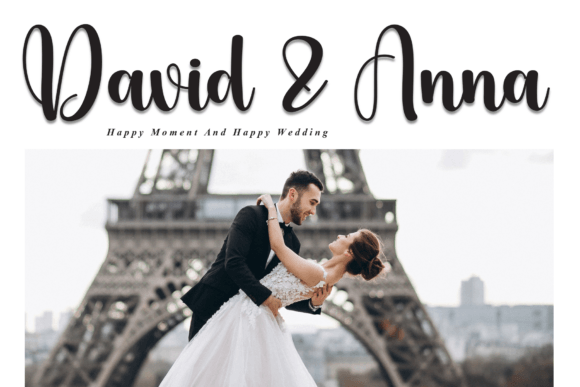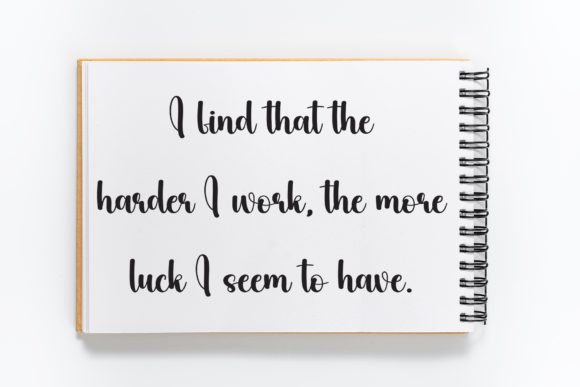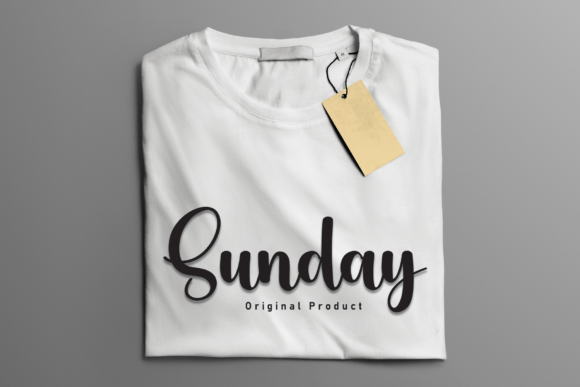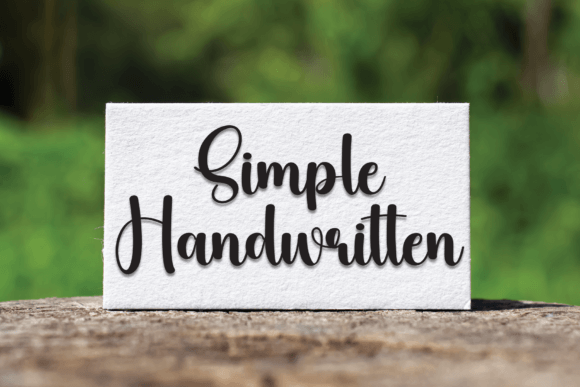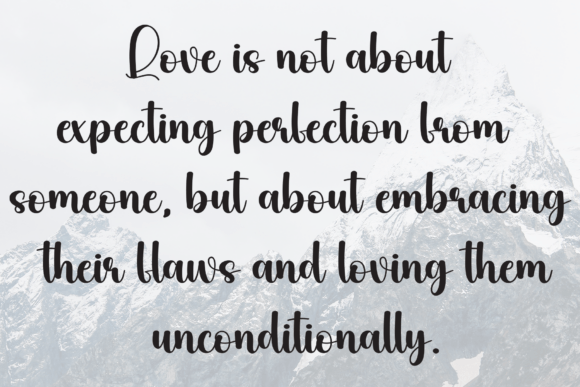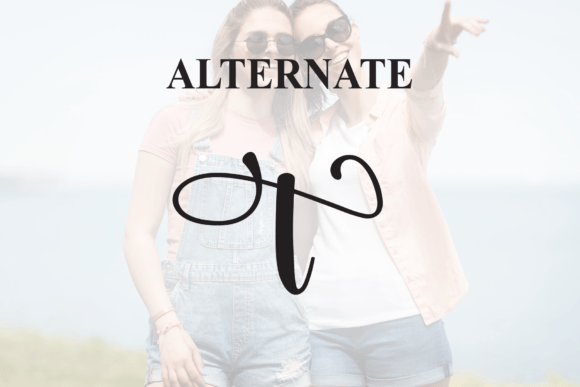
The Perfect Font to Make Your Heart Sing
You know that moment when you’re brainstorming ideas for a friend’s wedding, and suddenly, a spark of creativity strikes? The vision of a whimsical invitation, adorned with sweet illustrations and a dash of personality, flashes before your eyes. This is where the Bestie Font comes in – a charming handwritten display font that embodies the essence of friendship and joy.
This delightful font is more than just a typographical style; it’s a way to infuse your designs with a playful yet classy touch. With its endearing characters and casual handwritten feel, the Bestie Font is perfect for crafting heartfelt invitations, artistic cards, or any creative project that aims to elicit a smile. Whether you’re a seasoned designer or a DIY enthusiast, this font is sure to add a unique flavor of fun to your work, making it a valuable addition to any creative toolkit.
Key Features of Bestie Font
- Unique Characteristics: The font features a playful, handwritten style with swashes and flourishes, adding a touch of personality to designs.
- Font Pairing: The font is designed to pair well with sans-serif fonts, such as Open Sans or Lato, creating a balanced and harmonious design.
Bestie Font Review
I recently had the chance to work with the Bestie Font, and I’m excited to share my honest thoughts on this unique font.
- ✨ Unique aesthetic: Bestie Font has a distinct, playful vibe that’s perfect for creative projects and branding.
- ✨ High-quality glyphs: The font is well-crafted, with clear and legible letterforms that make it easy to read.
- ✨ Versatile: Bestie Font comes in a range of weights and styles, making it suitable for various design applications.
- ⚠️ Limited language support: Bestie Font may not include all the characters you need for certain languages, which could be a limitation for global brands.
- ⚠️ May not be suitable for body text: While Bestie Font is perfect for headlines and titles, it may not be the best choice for large blocks of body text due to its playful nature.
Overall, I think Bestie Font is a great choice for designers who want to add some personality to their projects. While it may have some limitations, its unique aesthetic and high-quality glyphs make it a great addition to any design toolbox.
Bestie Font is ideal for creating playful and casual designs, such as social media graphics, invitations, and children’s products. To get the most out of this font, use it in conjunction with bright and bold colors and playful illustrations.
Alternatives to “Bestie Font” for Designers
Great Vibes is a beautiful, modern script font that is perfect for creating a relaxed and friendly atmosphere. It’s ideal for use in logos, headings, and body text for websites, social media, and print materials.
Compared to Bestie Font, Great Vibes is more elegant and refined, with a more fluid and connected look. It’s a great choice for designers who want to create a sophisticated and professional look without being too formal.
Lato is a clean and modern sans-serif font that is perfect for use in digital products, such as websites, apps, and software. It’s highly legible and works well in a variety of contexts, from body text to headings and titles.